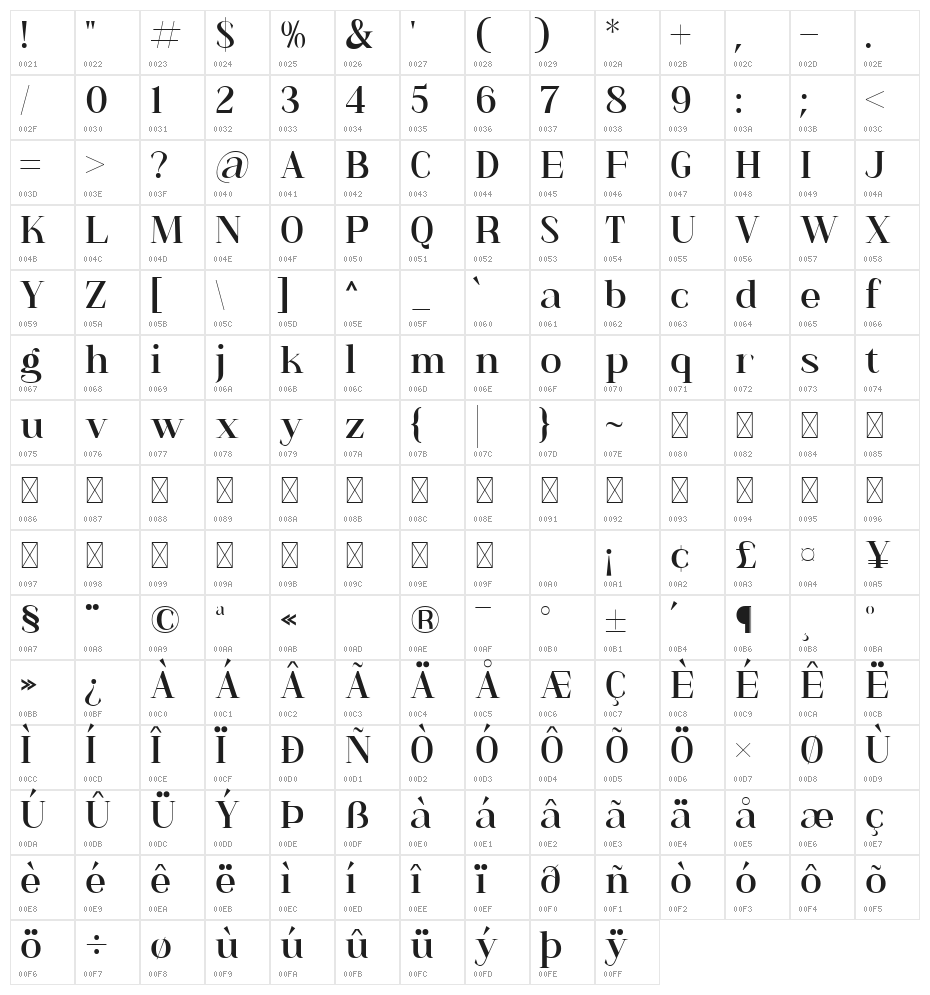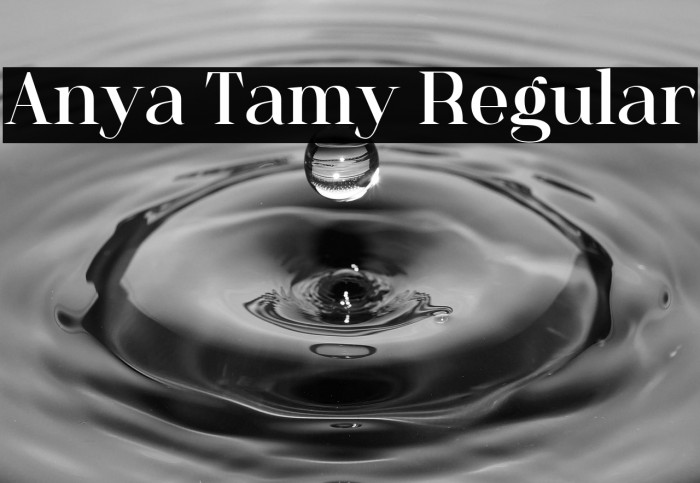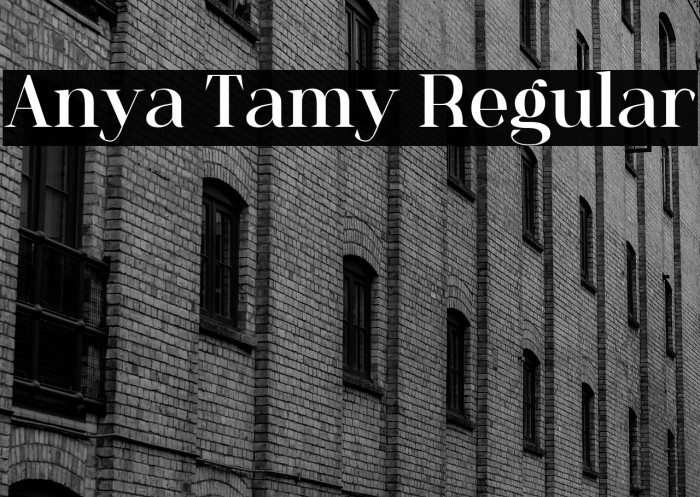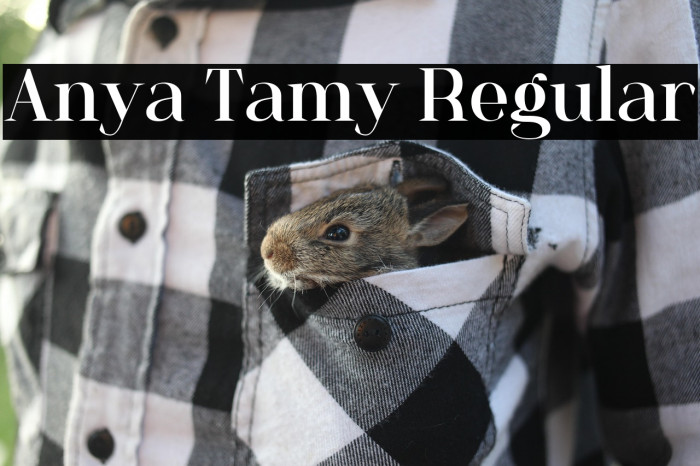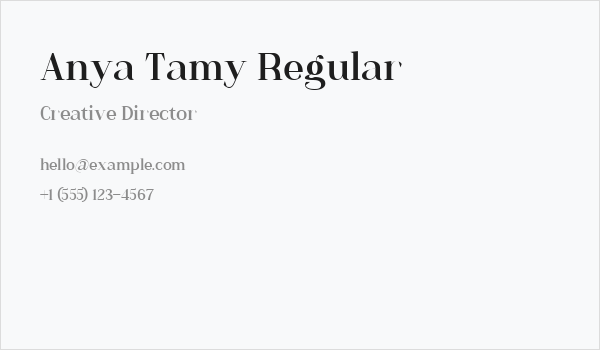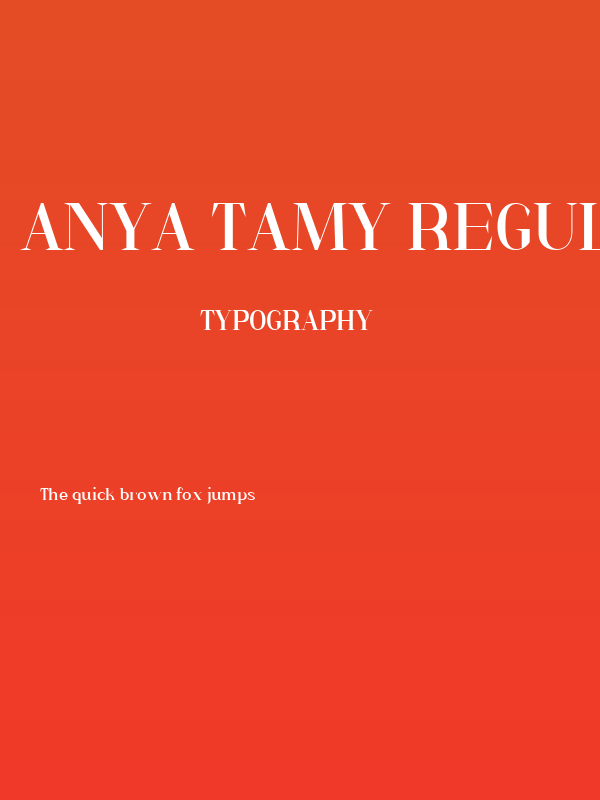
Anya Tamy Regular Font
Anya Tamy Regular Description
This font features a classic serif style with elegant, thin lines and high contrast between thick and thin strokes. The uppercase letters are tall and stately, with sharp serifs that give a sense of sophistication and formality. The lowercase letters maintain a consistent style, with rounded forms and a slight slant that adds a touch of dynamism. The numerals are clear and easy to read, with a traditional design that complements the overall aesthetic. Special characters are well-integrated, maintaining the font's refined look. This typeface is versatile, suitable for both digital and print media, and works well in various sizes.
| Proposed Projects | Ideal for editorial design, book covers, formal invitations, and branding projects that require a touch of elegance. |